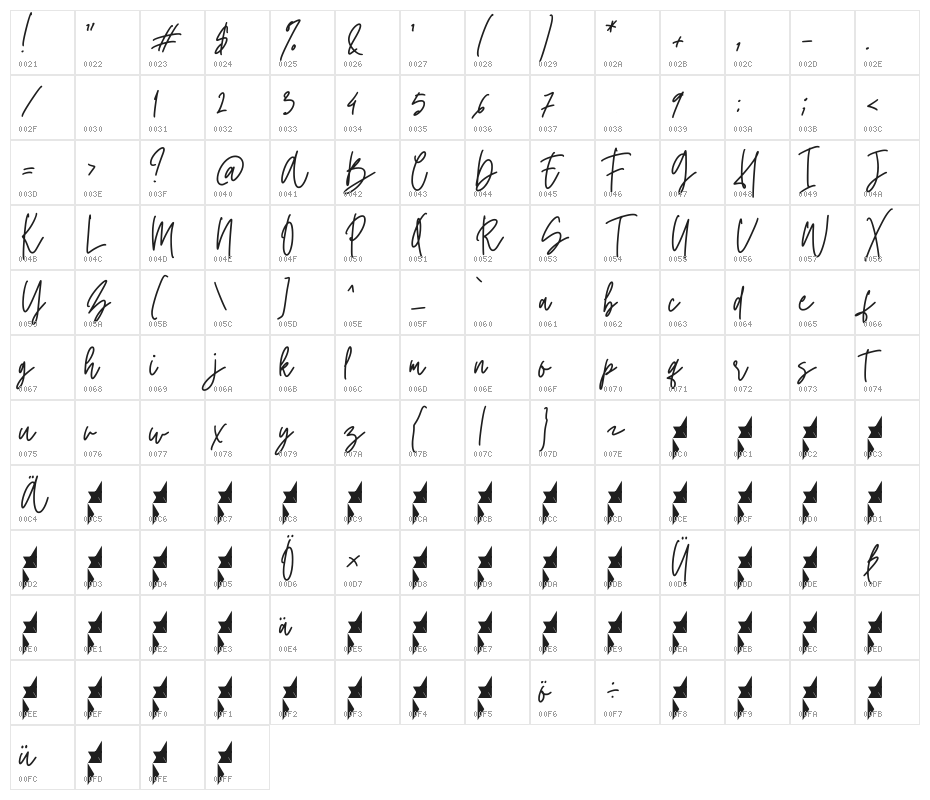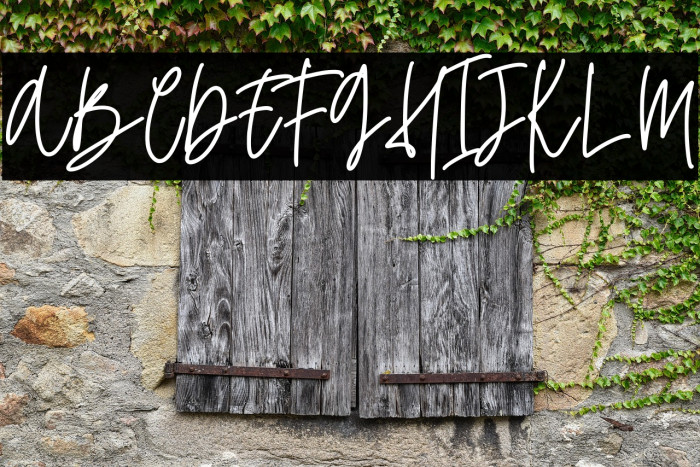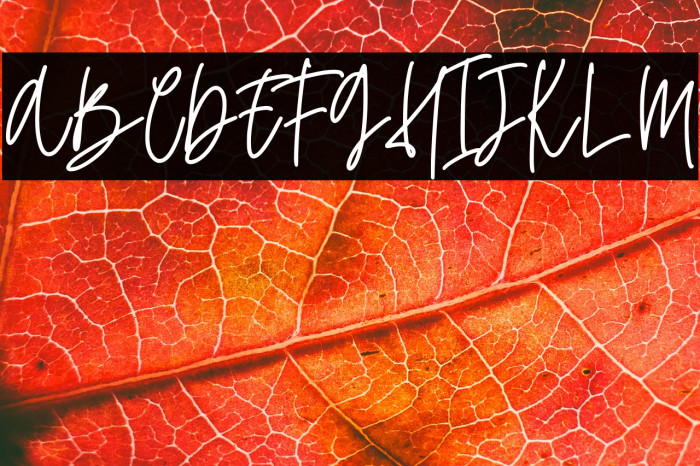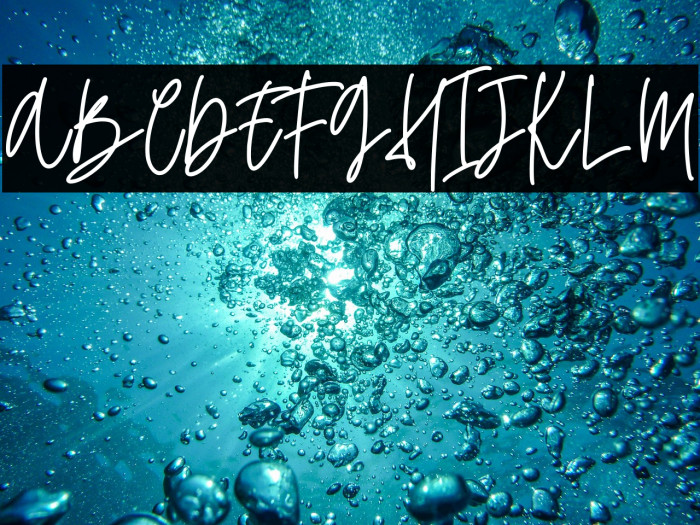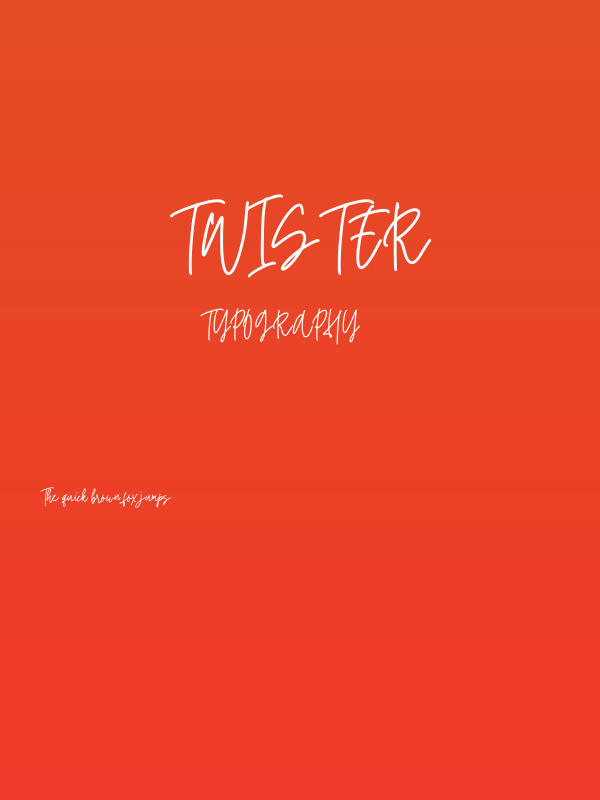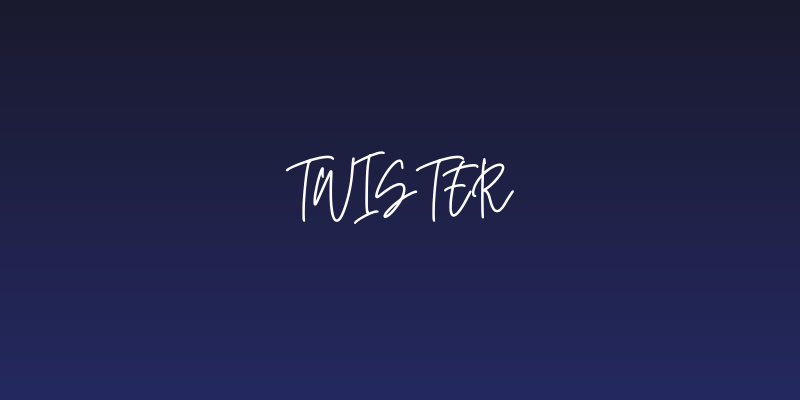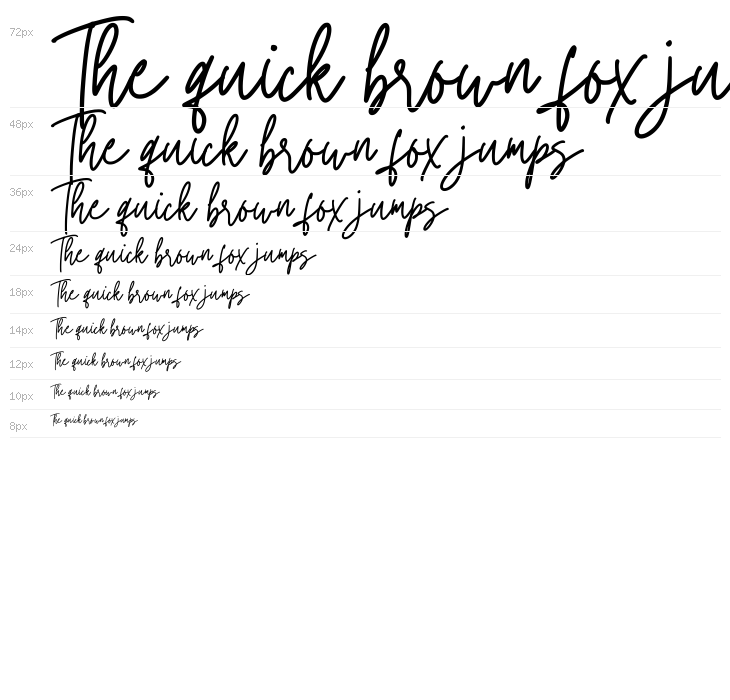
Twister Font
Twister Description
This font features a dynamic and energetic handwritten style, characterized by its fluid and cursive strokes. The letters are connected in a natural flow, giving it an authentic and personal touch. The uppercase letters maintain a consistent height, while the lowercase letters exhibit a playful variation in size, adding to the font's lively appearance. The numbers and special characters are crafted with the same fluidity, ensuring a cohesive look across all elements. This font's informal and spontaneous style makes it ideal for projects that require a personal or creative touch.
Use CaseLogos, Invitations, Artistic projects
Proposed ProjectsIdeal for personal branding, creative invitations, greeting cards, and artistic projects.